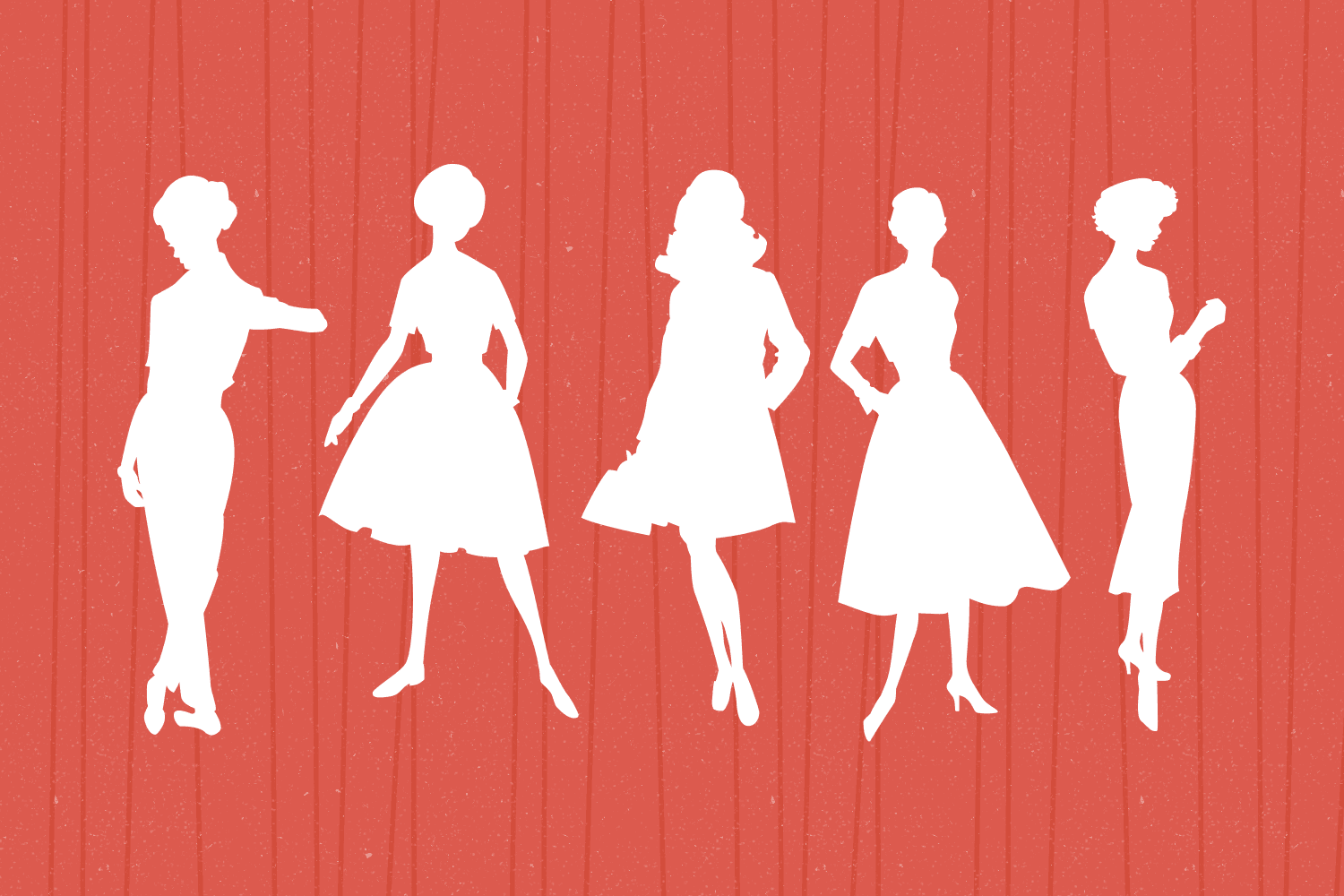
Sewing Patterns
When I created my first website, I loved using vintage sewing pattern illustrations in my designs. Thinking back on it, I wanted to create a dingbat inspired by those images and Sewing Patterns is the result.
The font features ladies-fashions in silhouette form for uppercase and lowercase letters and children's styles for the numbers.